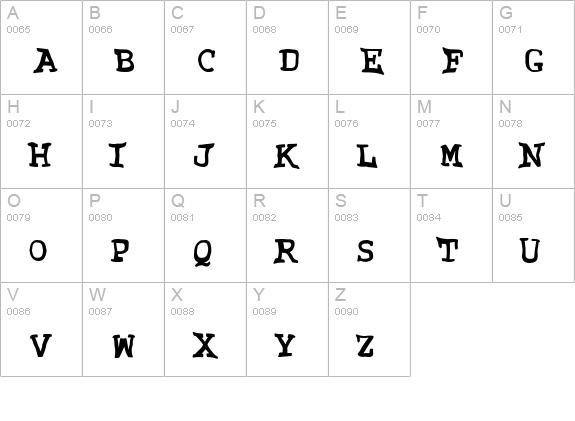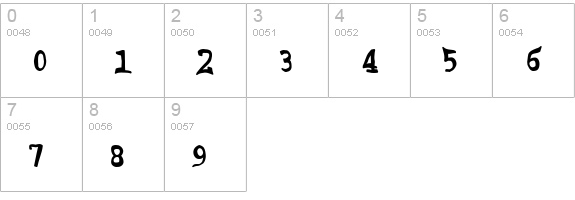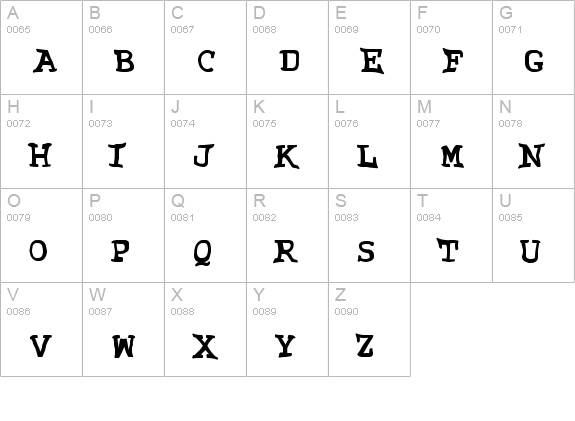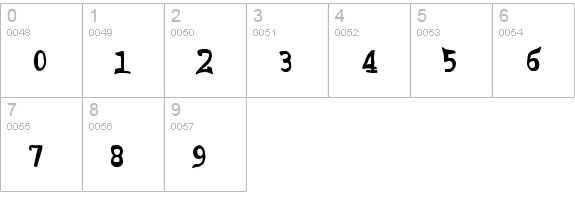
Grubby Font Details
Grubby font is a unique and quirky typeface that exudes a playful and handcrafted charm. Its irregular lines and rough edges give it a grungy and rebellious vibe, perfect for adding a touch of personality to your designs. The uneven strokes and imperfect details of Grubby font create a sense of authenticity and character that will make your text stand out. Best of all, Grubby font is completely free to download at FontsMarket.com. This means you can easily access this eye-catching font and use it in your projects without any cost. Whether you're designing posters, logos, or social media graphics, Grubby font will bring a fun and artistic flair to your creations. Don't miss out on this free font – download Grubby today and let your creativity shine!